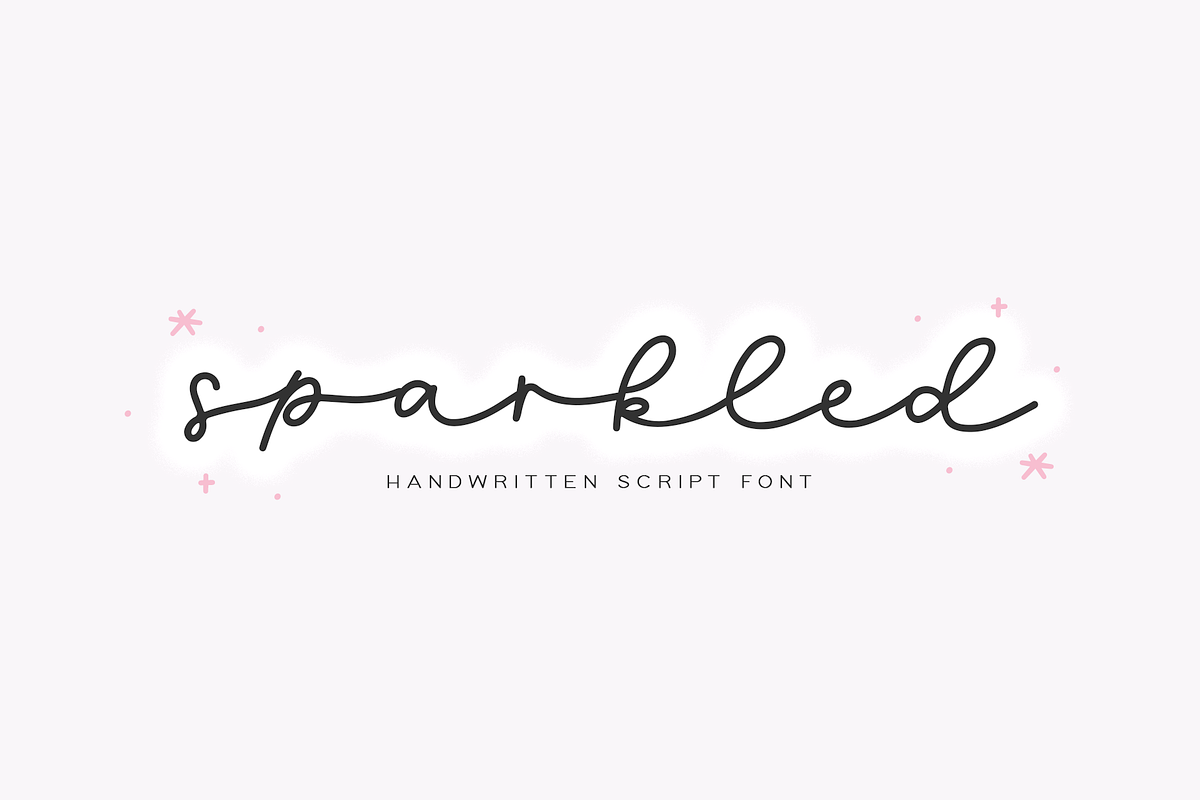
Add a dash of elegance and charm to your designs with Sparkled Handwritten Script Font Free Download — a beautifully crafted handwritten script font that sparkles with personality. Perfect for wedding invitations, personal branding, greeting cards, blog headers, and any project that needs a playful yet refined touch.
Sparkled brings a unique blend of fluid calligraphy and modern flair. Its soft strokes and fluid connection give your text a personal, handwritten feel that will captivate your audience. The font includes uppercase and lowercase characters, punctuation, numerals, and multilingual support — providing all the versatility you need for creative expression.